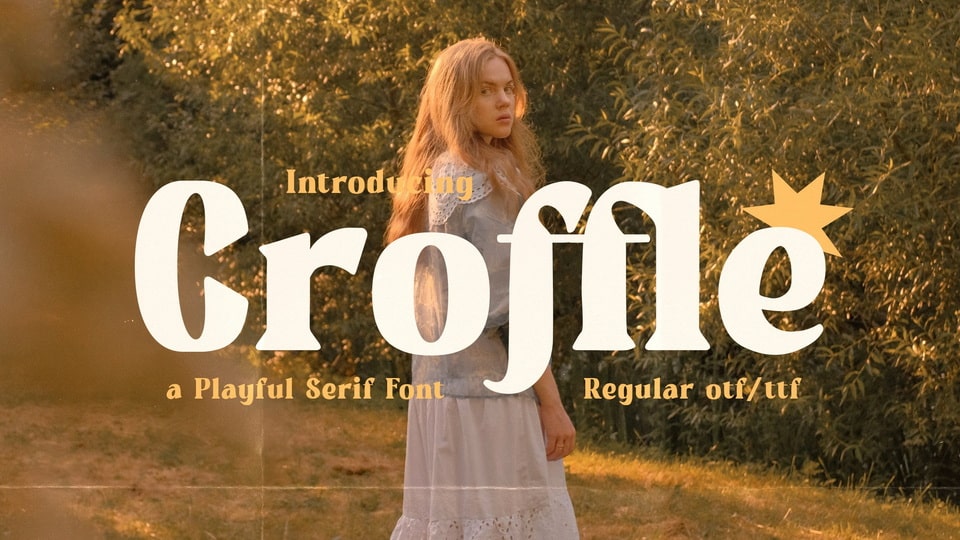
Download Croffle font, an incredibly fun, beautiful, and playful serif typeface. Croffle features a nice, has spring and autumn vibes, modern style that can enhance the playful and beautiful look of almost any project